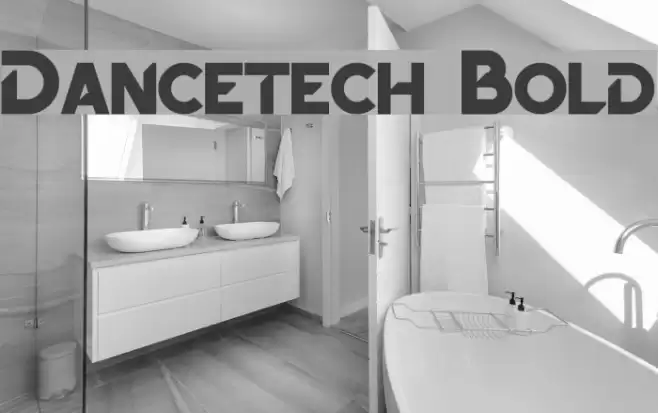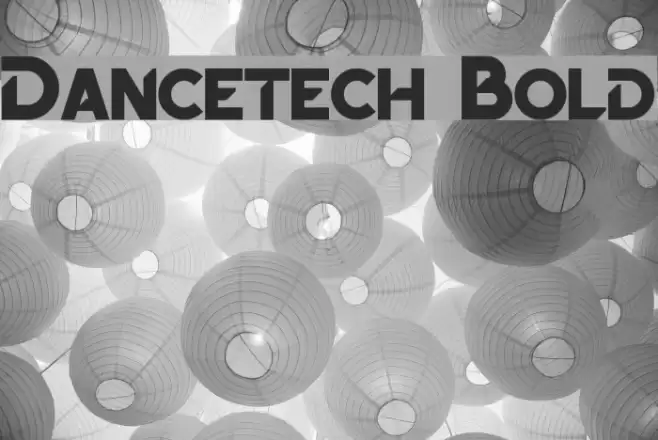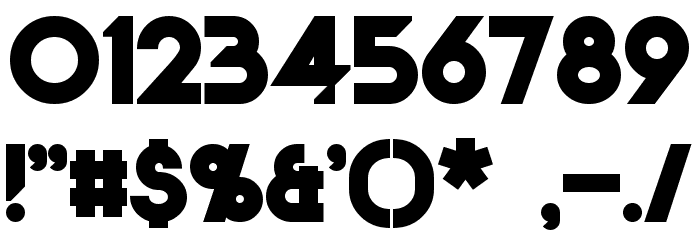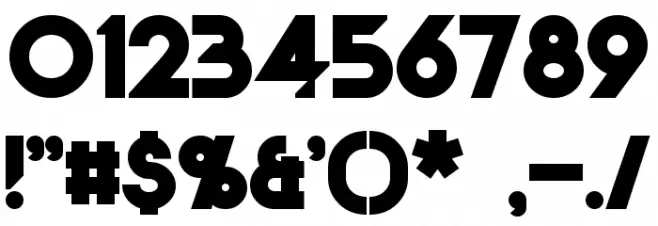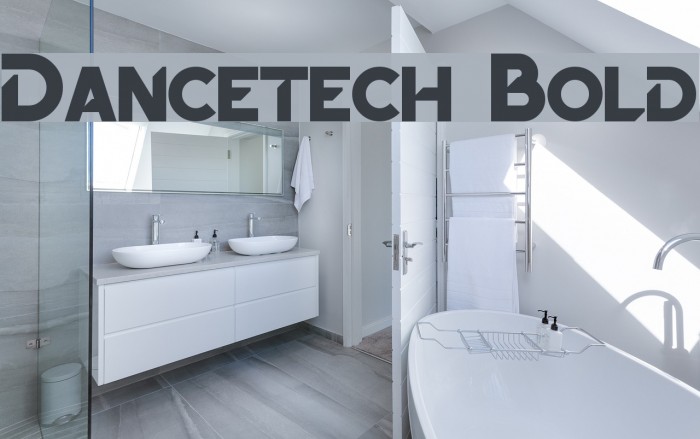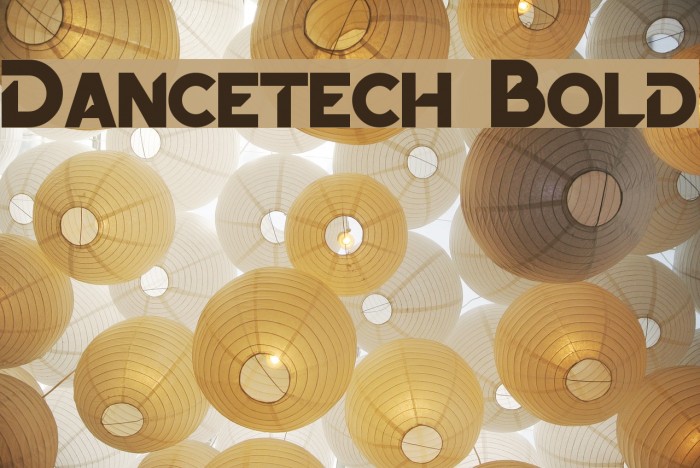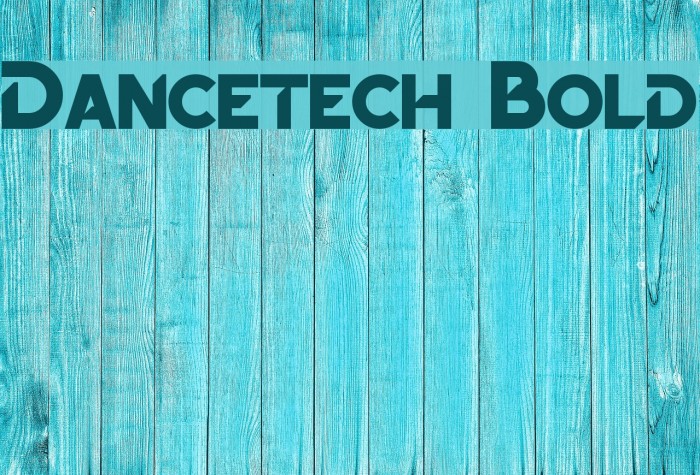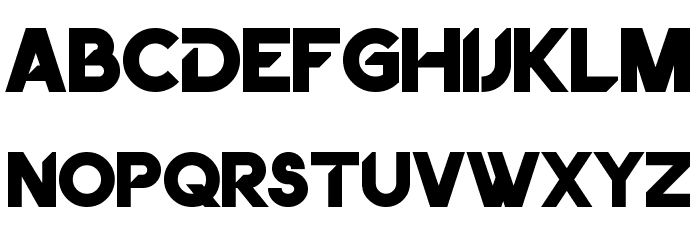
Dancetech Bold Font
Dancetech Bold Description
This bold and striking font features a geometric and futuristic design, characterized by its thick, uniform strokes and sharp angles. The uppercase letters exhibit a strong presence with their wide, block-like forms, while the lowercase letters maintain a consistent style that complements the uppercase. The numerals are equally bold, ensuring readability and impact. Special characters are designed with the same attention to detail, making them stand out. This font's overall aesthetic is modern and dynamic, suitable for projects that require a bold statement.
A bold, geometric font with a futuristic and dynamic style from Uncategorized fonts.